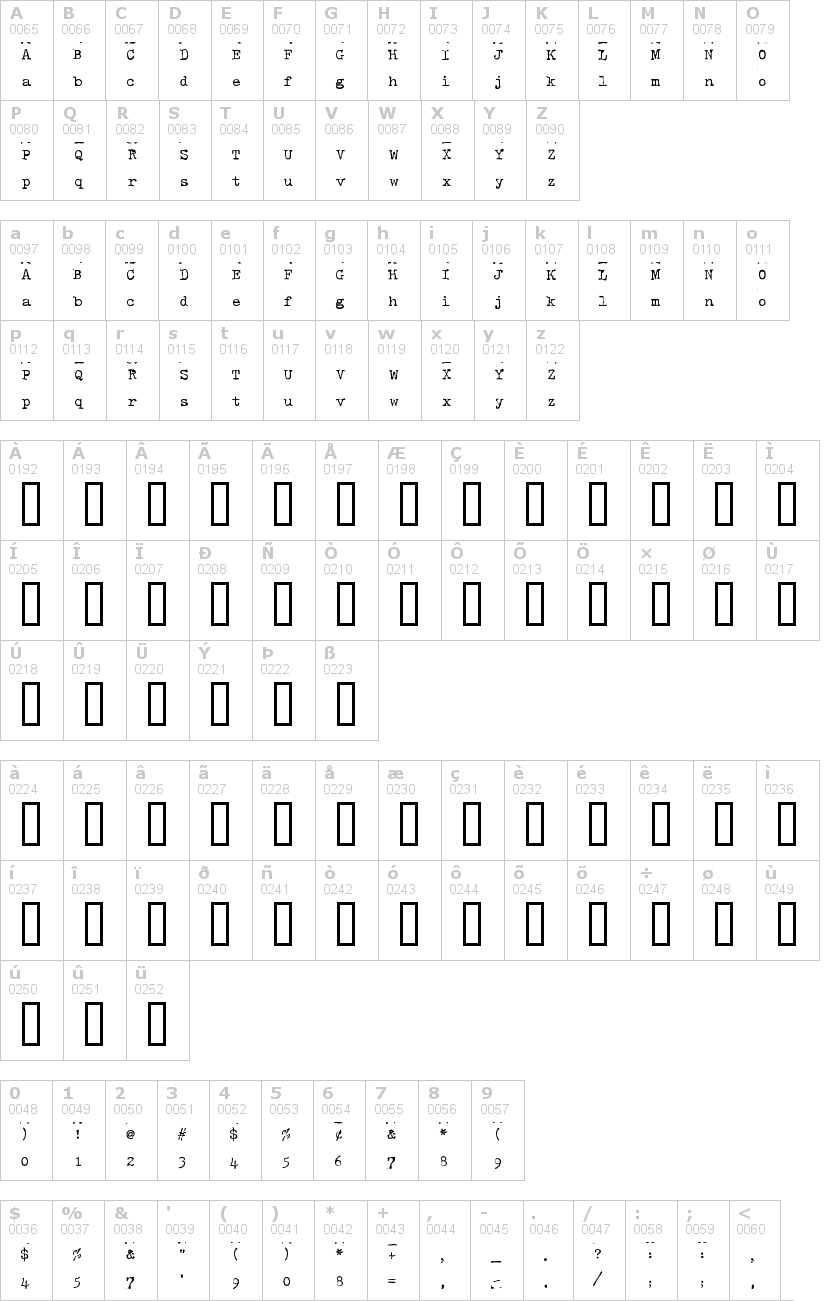
Hammer Keys Typewriter Font . Hammer keys font is free for both personel and. Discover and customize the font hammer keys and other similar fonts, ready to share in facebook and twitter. Download font free at fontriver. Hammer keys font is a fancy, typewriter font designed by matt lyon. Looking for hammer keys font designed by matt lyon? Hammer keys font | dafont.com english français. This font was comressed in a zip. 2 matching requests on the forum. Get your very own free download of the hammer keys font, designed and created by matt lyon. This font is designed so old. Click here to create a custom image with your own text. Available in both ttf and otf typeface formats. You can download hammer keys font for free by clicking download button. Version of the hammer keys font is macromedia fontographer 4.1.4 8/9/98.
Hammer keys font is a fancy, typewriter font designed by matt lyon. Version of the hammer keys font is macromedia fontographer 4.1.4 8/9/98. Hammer keys font is free for both personel and. 2 matching requests on the forum. Download font free at fontriver. You can download hammer keys font for free by clicking download button. Get your very own free download of the hammer keys font, designed and created by matt lyon. Hammer keys font | dafont.com english français. This font is designed so old. This font was comressed in a zip.